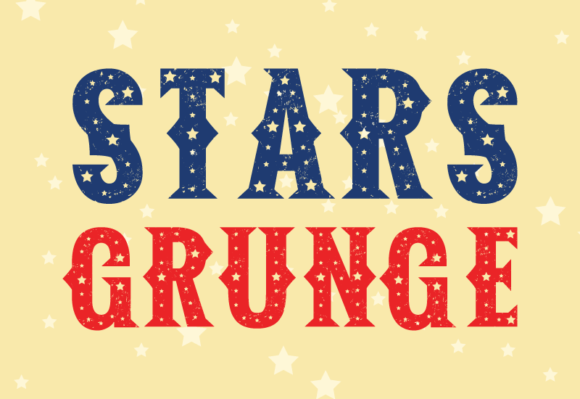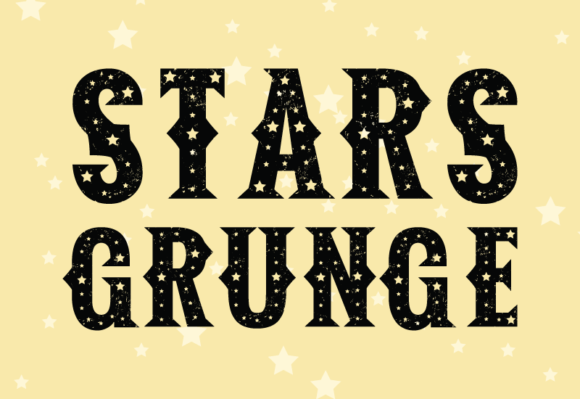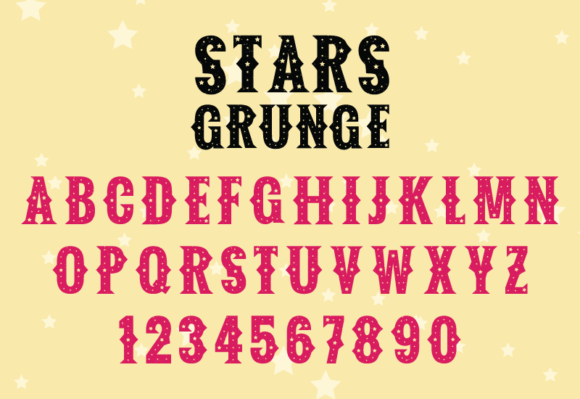
Stars Grunge Font
About the Stars Grunge Font
Step up your design game with Stars Grunge Font, a font that exudes confidence and style. Welcome to the universe of Stars Grunge, a fascinating font subtly blending the shimmer of stardust with the rough charisma of the Old West. Imbued with starlit details and a fresh yet reminiscent aesthetic, this font is a love letter to minimalism. Stars Grunge shines through with traditional vintage ratios, making it a standout choice for those aiming to add a tasteful touch of nostalgia and straightforwardness to their branding pursuits, logos, or web designs. With Stars Grunge, enjoy a harmonious fusion of everlasting elegance and contemporary style.
Stars Grunge Font Usage Examples
Stars Grunge Font Example